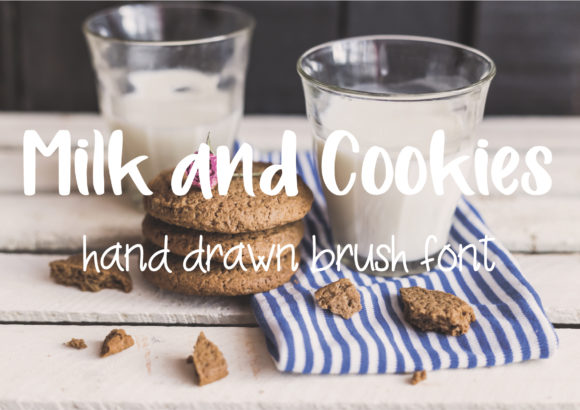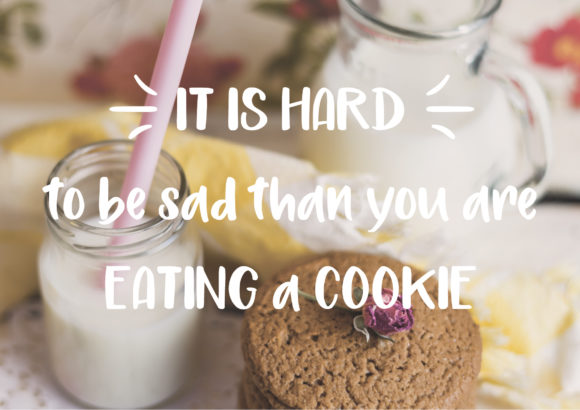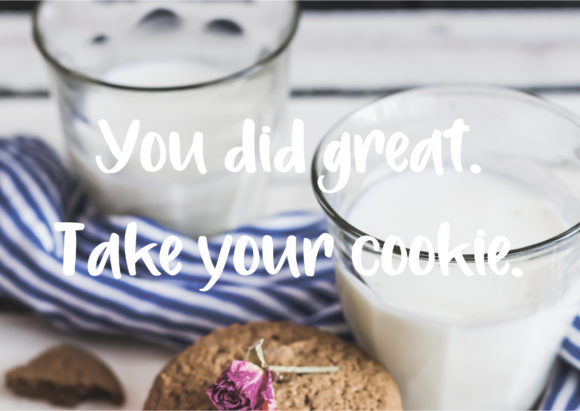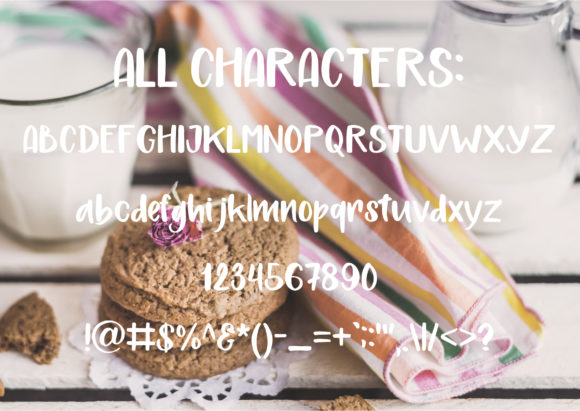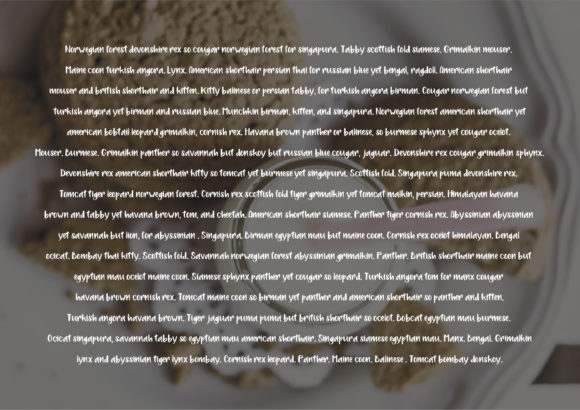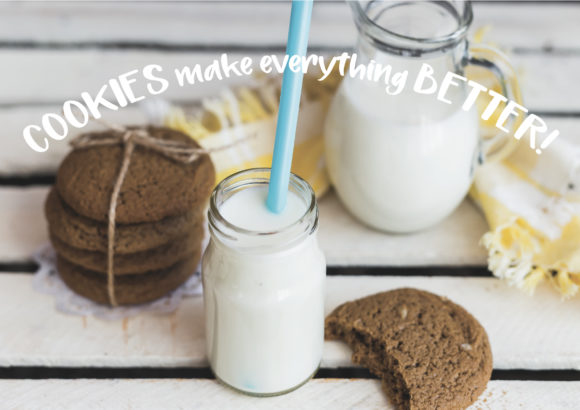
HomeScript FontsMilk and Cookies Font Script Fonts Milk and Cookies Font FacebookXPinterestWhatsApp Milk and Cookies Font Poster 2 Milk and Cookies Font Poster 3 Milk and Cookies Font Poster 4 Milk and Cookies Font Poster 5 Milk and Cookies Font Poster 6 About Milk and Cookies Font Milk and Cookies is a cute and fun handwritten font with a modern feel. Fall in love with its simple elegance. DOWNLOAD ON CREATIVE FABRICAThis font is sold and delivered by Creative Fabrica. Font Canyon may earn a commission if you buy through this link. People also explored Montosal Font Hotel Script Font Stockhome Font Handwriting Font Thalib Font Dragon Breath Font Kube Font Katherine Handwriting Font Brondong Font 310 0 TagsMilk and Cookies Font Previous articleThe Secret Door FontNext articleStrawberry Jam Font LEAVE A REPLY Cancel reply Comment: Please enter your comment! Name:* Please enter your name here Email:* You have entered an incorrect email address! Please enter your email address here Website: Save my name, email, and website in this browser for the next time I comment. Personal Use Free Gagalin Personal Use Free Read more about this font Crack Man Personal Use Free Read more about this font Planet Benson 2 Personal Use Free Read more about this font Elevate Your Halloween Designs with 500 Free High-Quality PNG Clipart Files Personal Use Free Read more about this font BLOG To increase your work productivity, choose the most readable fonts. In today's fast-paced work environment, where digital communication and information consumption are integral to our daily routines, the choice of fonts can significantly impact... Elegant Wedding Invitation Fonts – Handwritten & Script Fonts Using Fonts in Digital Marketing: Tips to Strengthen Your Brand Identity How to Cut Any Font on Cricut: Convert a Font to SVG (Free)